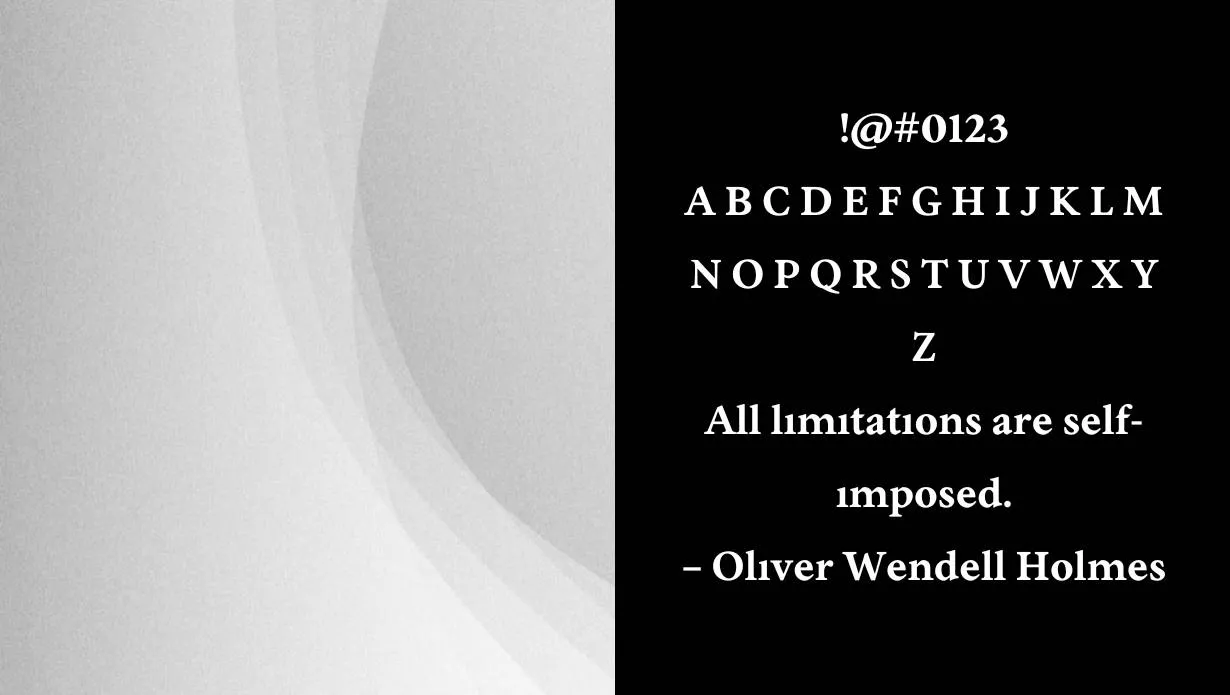
The Inferi Font is a modern and attractive serif texture family that was created by Matthieu Salvaggio. It has both file formats are available OpenType and TrueType.
It has been utilized for large types of projects because it contains various types of styles and weights. This wonderful texture has an online generator tool, in which you can easily change all your simple textures into stylish and awesome shapes.
It will give a perfect look when utilized with other fonts like belithel sans serif font. It has unique and extensive types of characters. The glyphs of this interesting texture are said to be based on the shapes of ancient runes. You can be perfect for creating a magical project.